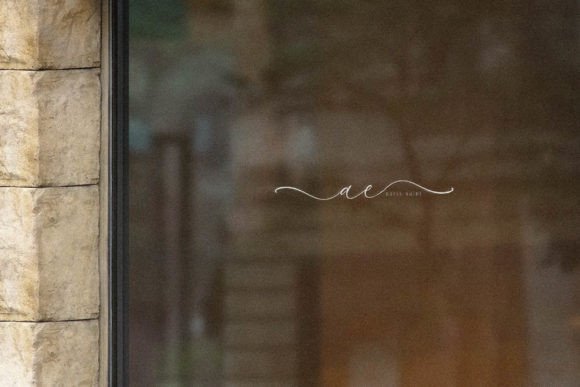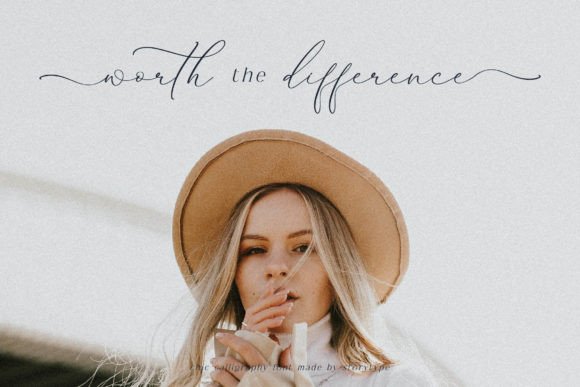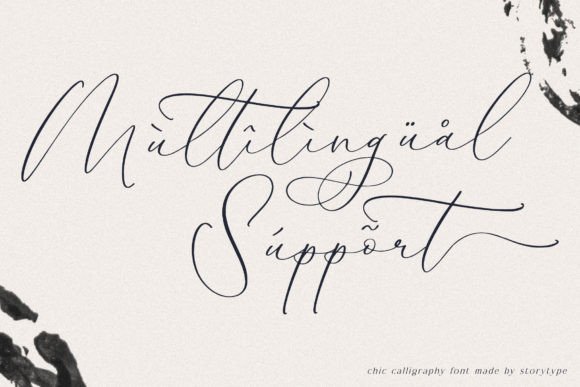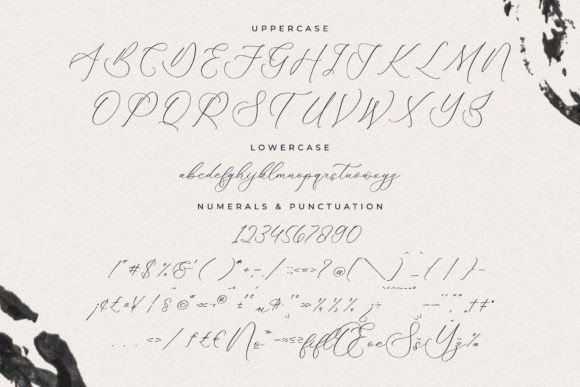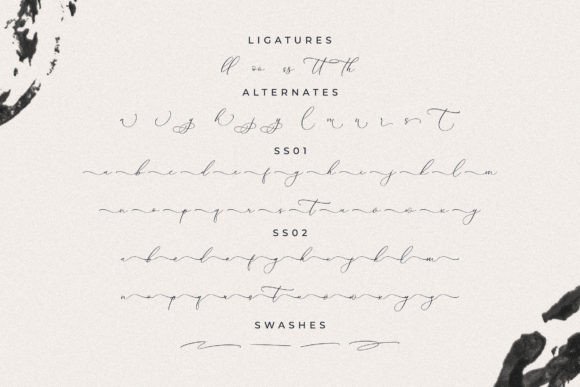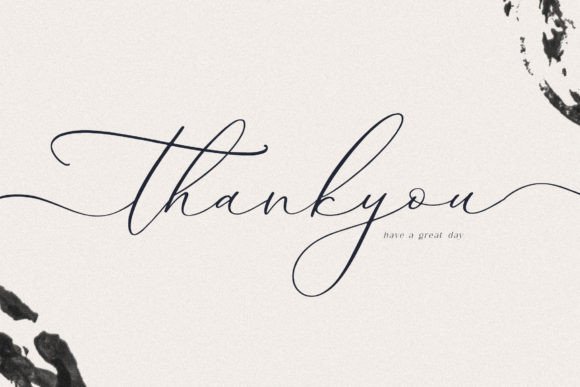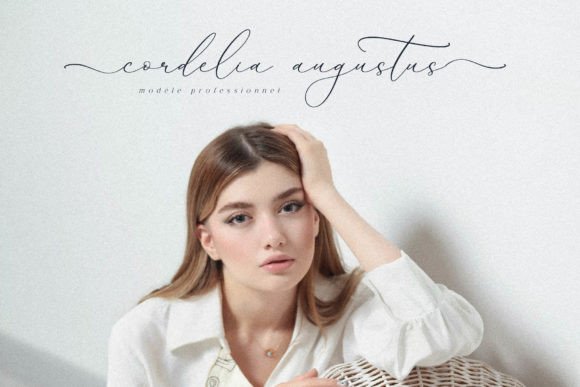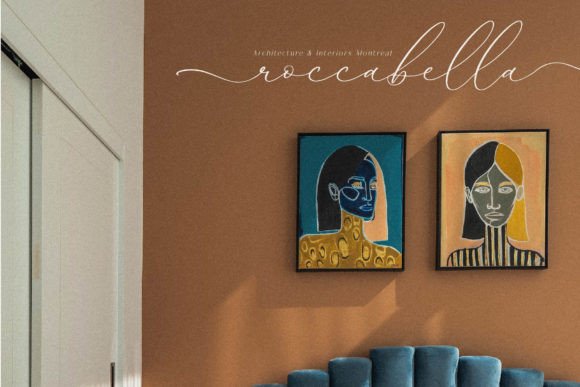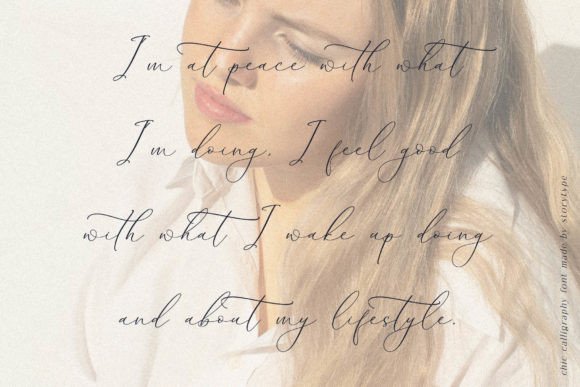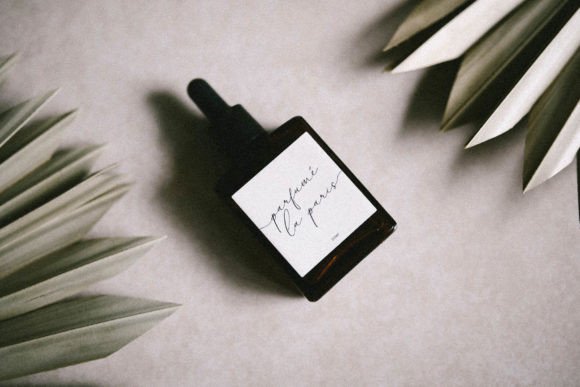
Authentiue Font
About Authentiue Font
Authentiue is a stylish and chic calligraphy script font. No matter the topic, this font will be an incredible asset to your fonts' library, as it has the potential to elevate any creation.